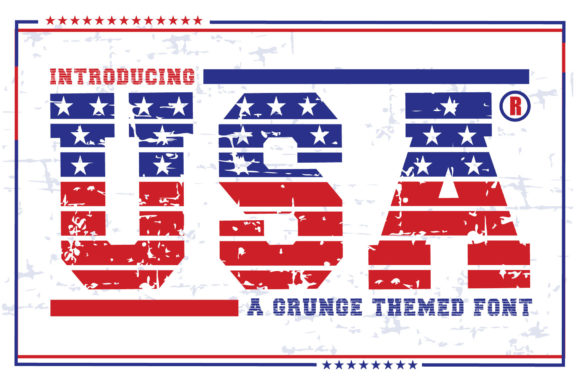
Step into the world of Usa Grunge, a font that exudes boldness, coolness, and assertiveness. Its captivating display nature demands attention, making it the perfect choice for designs that crave impact.
Journey into the realm of speed and sports, where Usa Grunge flourishes. Its sharp edges and dynamic curves evoke a sense of motion, propelling your designs to new heights. Unleash your creativity and explore its endless variations to create masterpieces that leave a lasting impression.
Usa Grunge is more than just a font; it's an experience. Immerse yourself in its energy and let it ignite your imagination. Experiment with different design concepts and unleash your unique style. Whether you're crafting logos, posters, or simply adding a touch of edginess to your projects, Usa Grunge is your ultimate companion.
Don't settle for ordinary fonts that blend into the background. Embrace the power of Usa Grunge and let your designs roar with confidence. Its bold presence commands attention, ensuring your message cuts through the noise and resonates with your audience.
Join the creative revolution and unlock the full potential of Usa Grunge. Its versatility knows no bounds, adapting seamlessly to a wide range of design needs. From T-shirt designs that speak volumes to posters that demand a second glance, Usa Grunge is your secret weapon for creating designs that captivate and inspire.